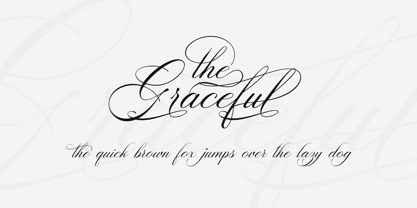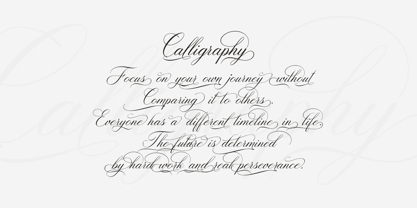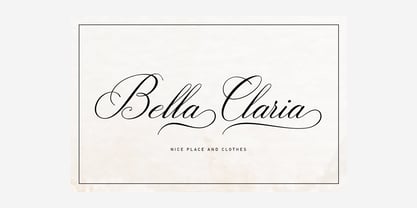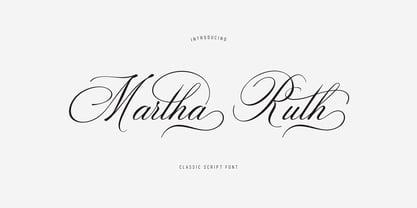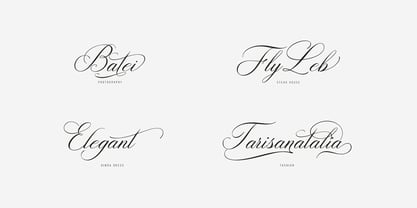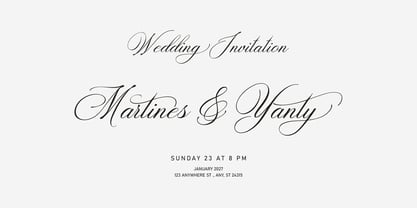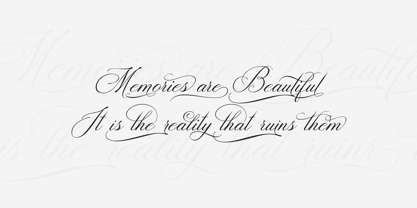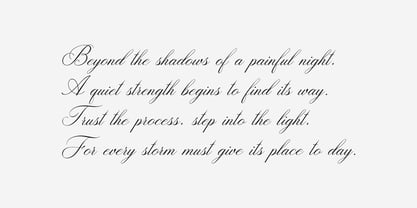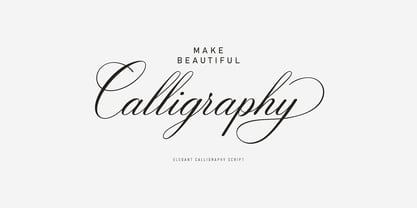
Martha Ruth
The Martha Ruth Font Family was designed by Alam Syahril and published by Realtype. Martha Ruth contains 1 styles. More about this family
Martha Ruth - Classic Script Font
Infuse a sense of classic luxury and timeless romance into your designs with Martha Ruth Script Font. This modern calligraphy typeface is meticulously crafted with elegant, sweeping swashes and precise lines, delivering an authentic and high-end handwritten feel.
Featuring rich OpenType features, alternative characters, and smooth ligatures, it allows you to create dynamic, fluid typography with ease.